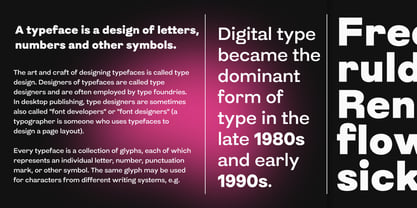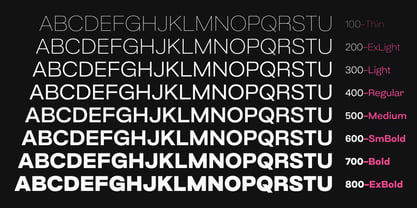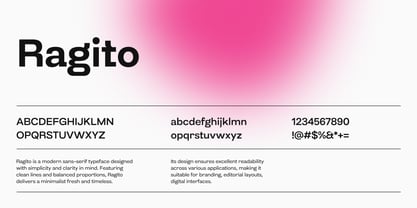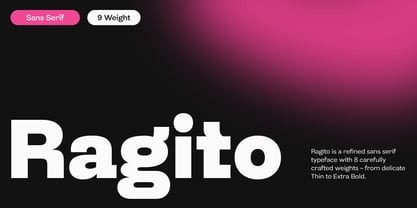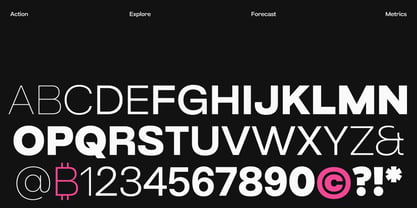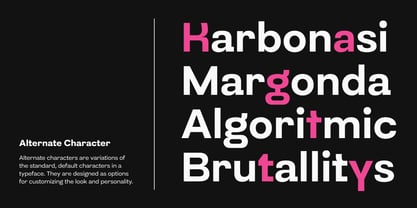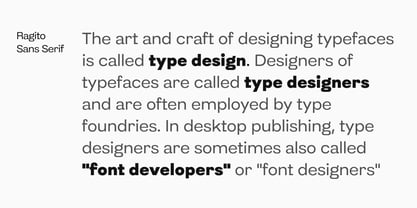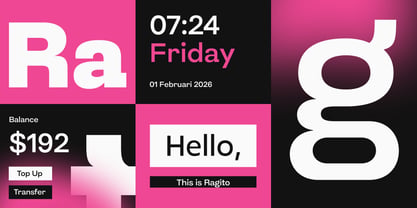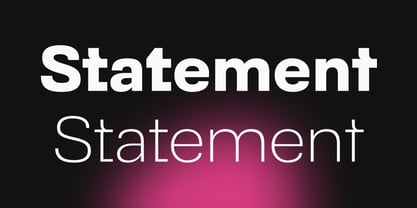
Ragito
by Fitrah Type
The Ragito Font Family was designed by Moch Fitrah Hidayat and published by Fitrah Type. Ragito contains 8 styles and family package options. More about this family
Ragito is a modern sans-serif typeface that embodies simplicity and clarity. With its clean lines and balanced proportions, Ragito presents a minimalist aesthetic that is both fresh and timeless. This versatile typeface features a comprehensive range of weights from Thin to Extra Bold, providing exceptional flexibility for various design applications, including branding, editorial work, web design, and user interfaces. Its straightforward and refined structure guarantees strong readability while preserving a contemporary and professional appearance. Ideal for projects that require a sleek and modern touch, Ragito is perfect for enhancing visual communication across diverse platforms.
Designers: Moch Fitrah Hidayat
Foundry: Fitrah Type